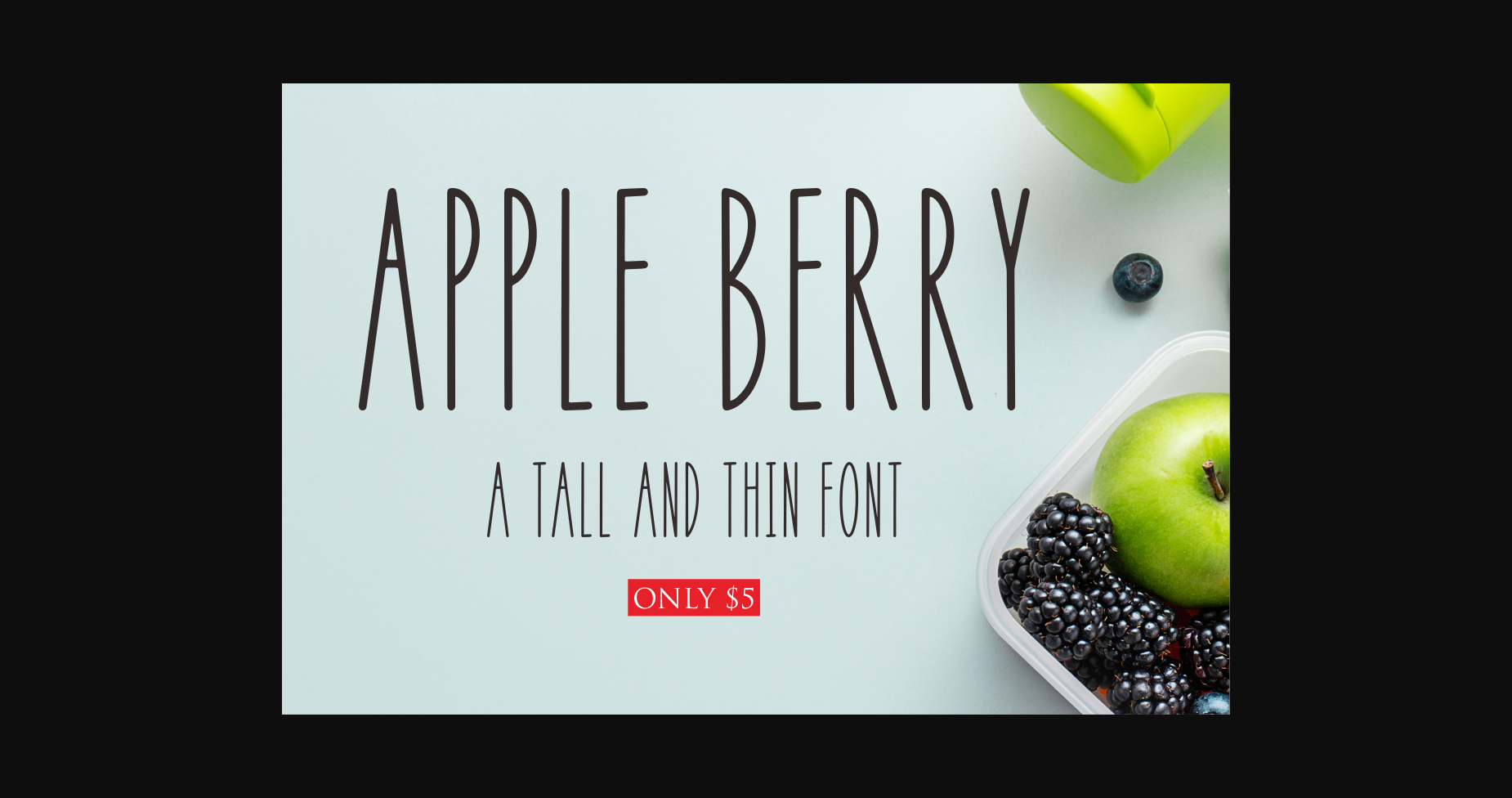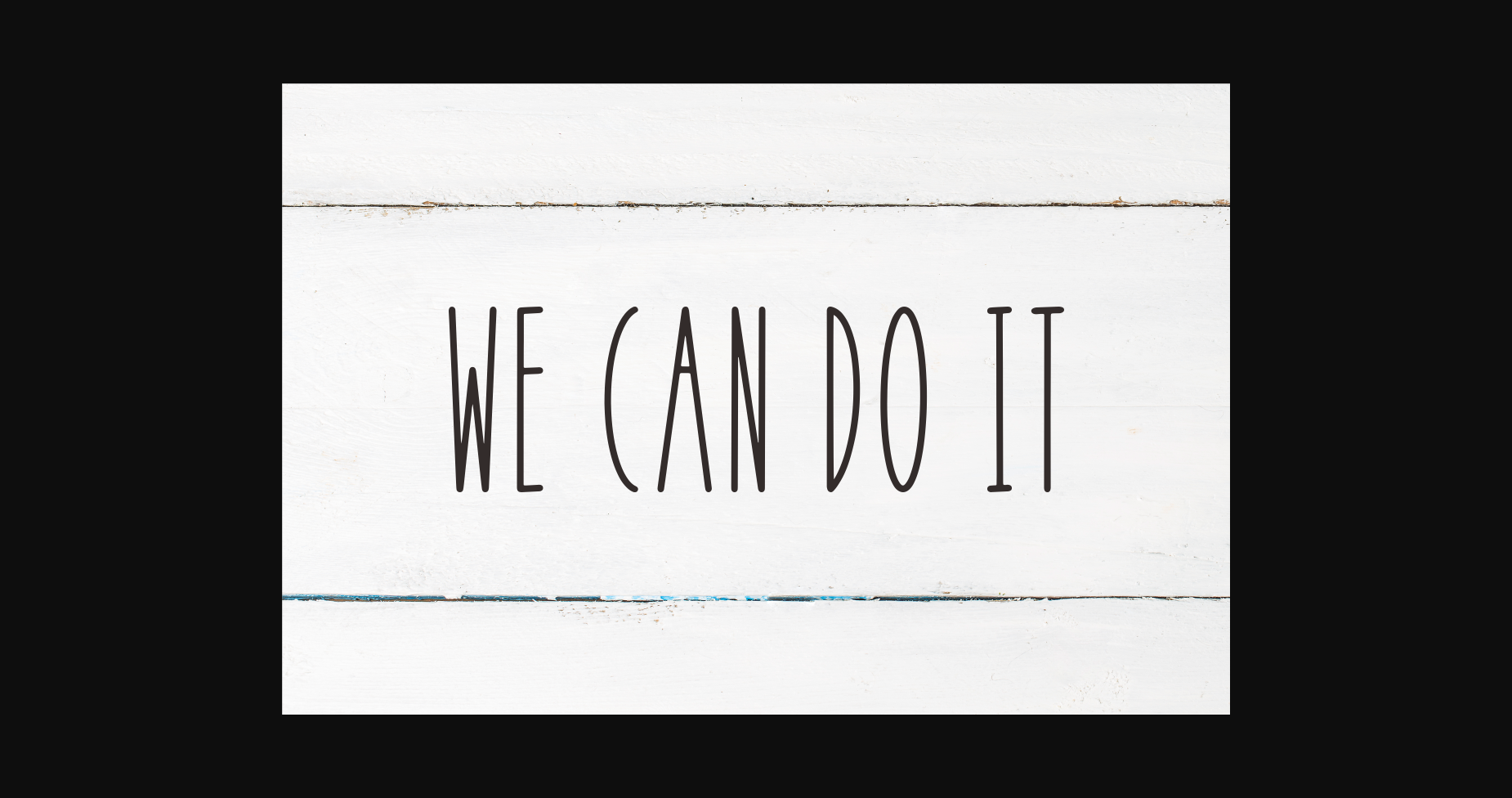
About Apple Berry Font
Apple Berry is a cute, tall and simple lettered sans serif font that can be used for all chalkboard quotes or teaching material! Its authentic look will add a personal and realistic feel to your designs.